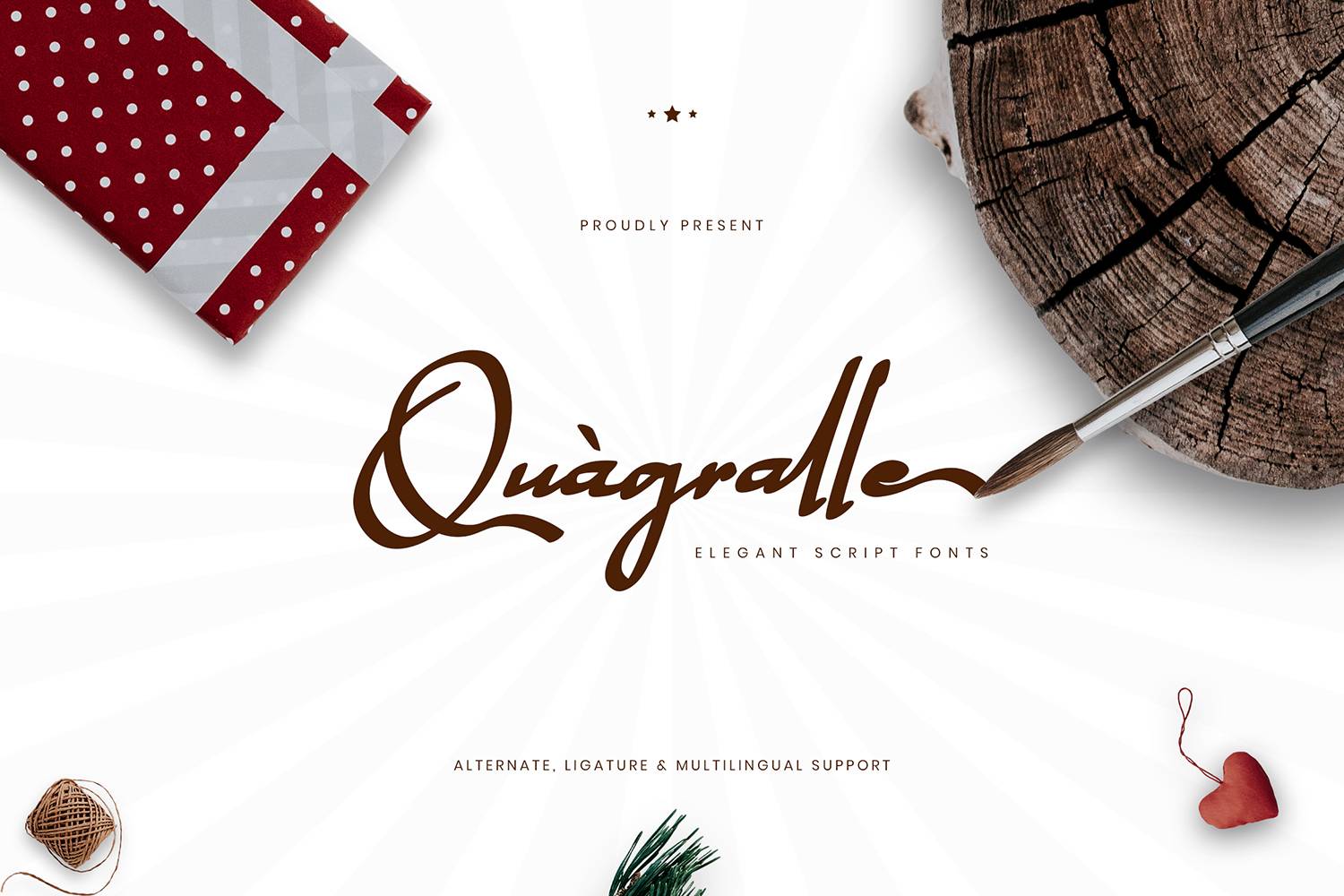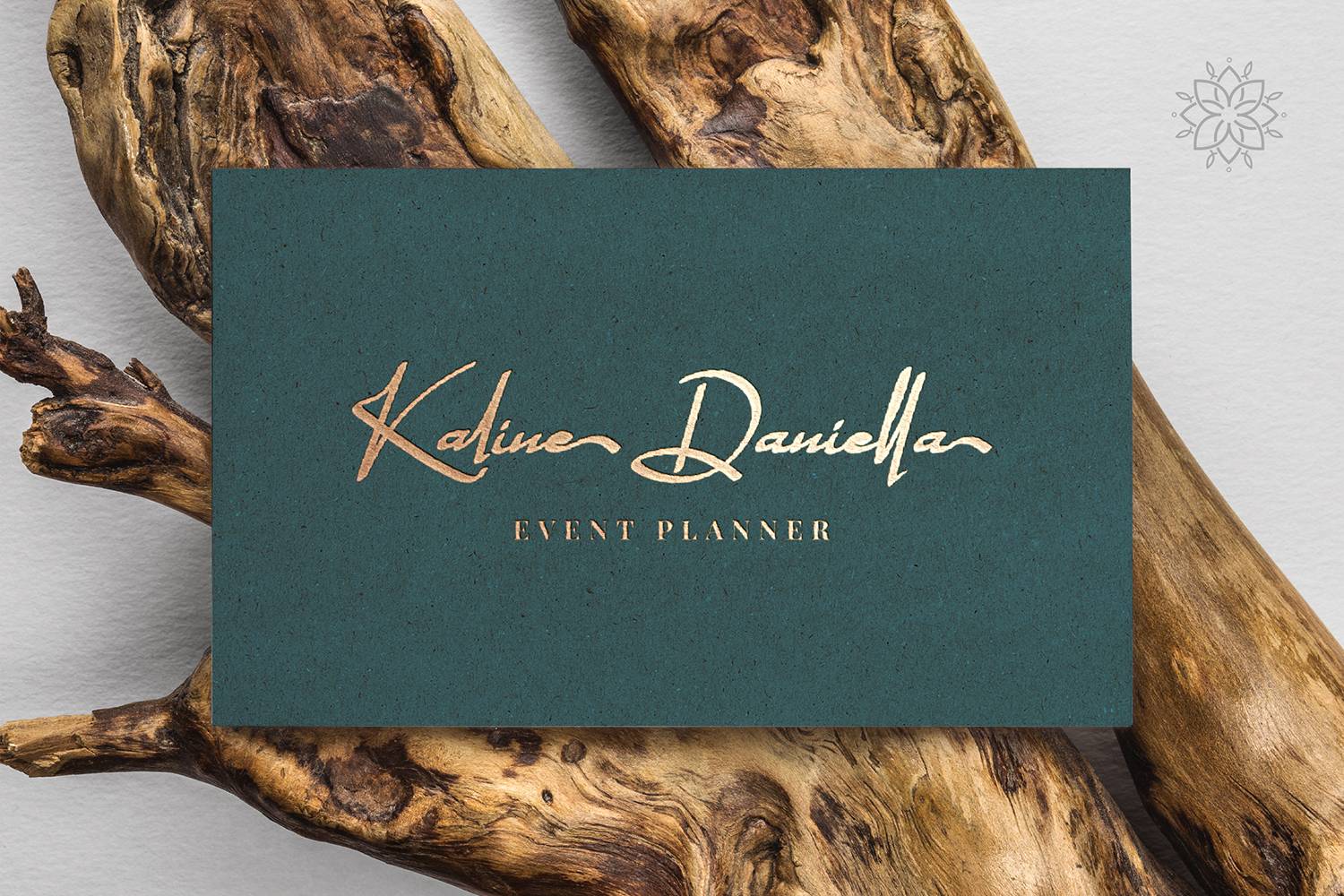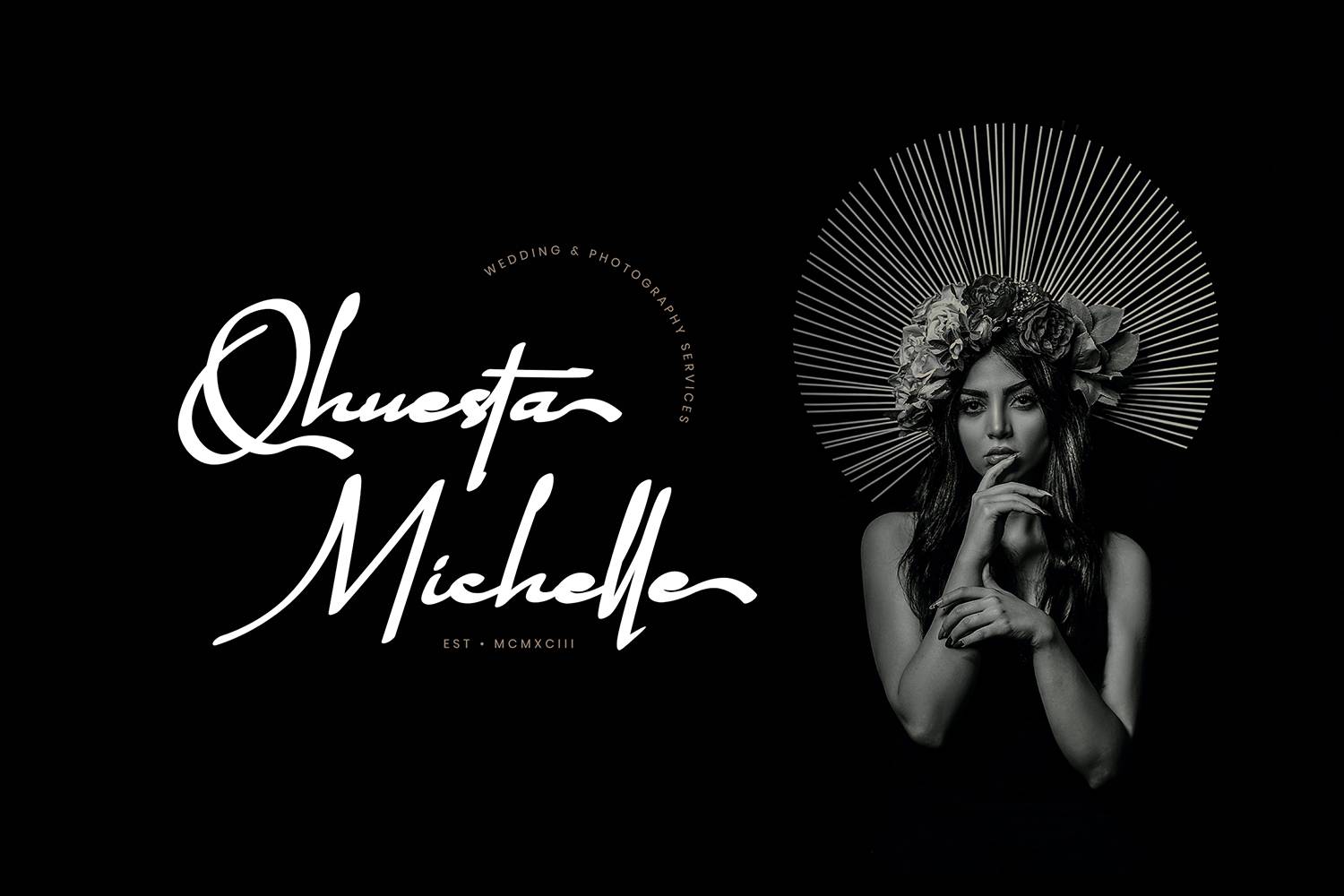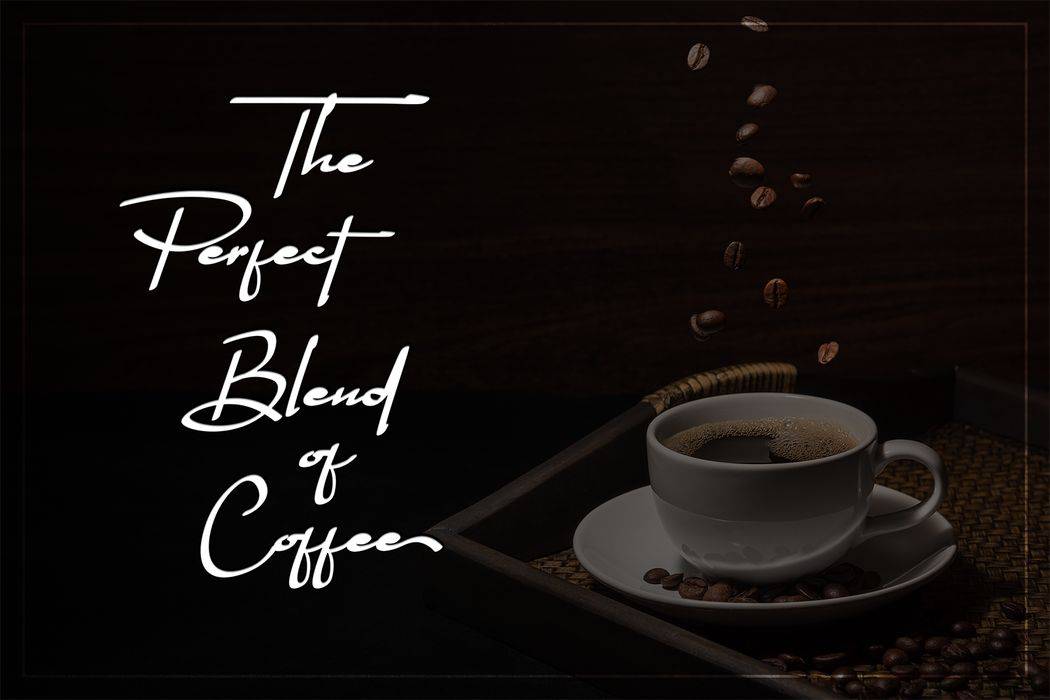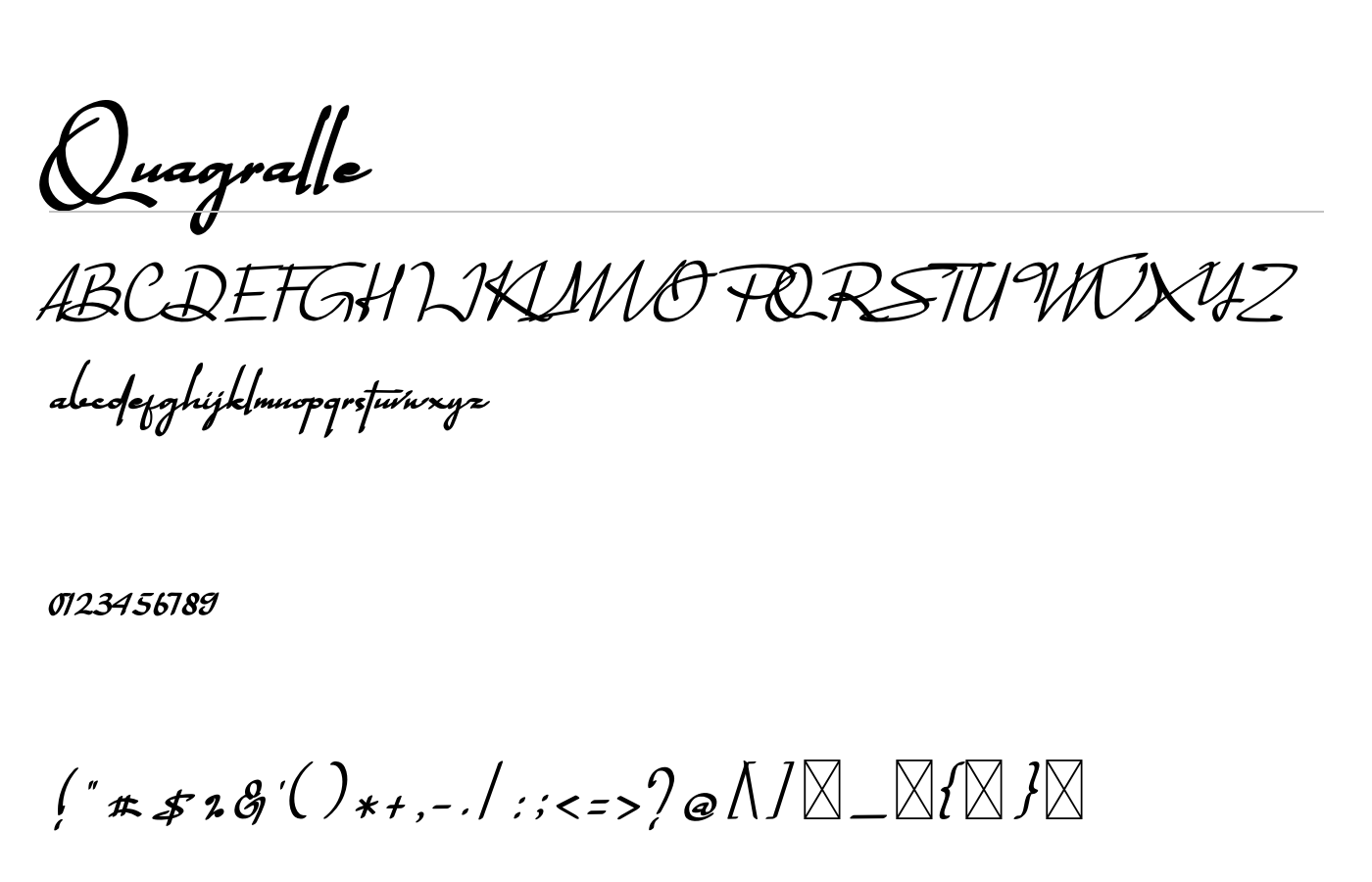
Quagralle is a stylish script font with a dynamic, handwritten feel characterized by elegant, flowing strokes and a slight slant, giving it a sophisticated yet approachable personality. Its light weight and moderately condensed letterforms make it suitable for expressive headlines, invitations, or branding that seeks a refined, artistic touch. This font shines in creative projects where a personal, elegant vibe is desired without sacrificing readability.